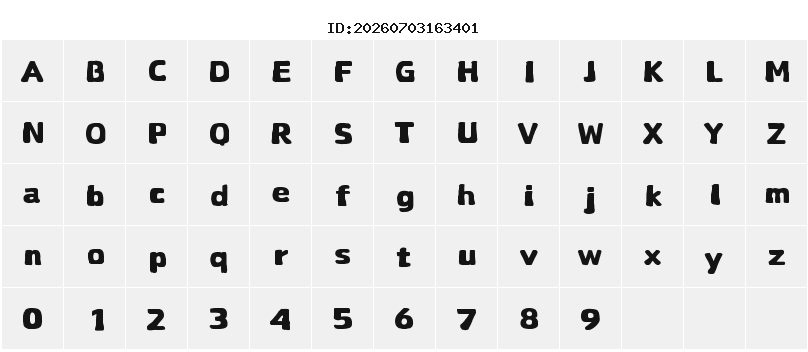
434-上首树懒体 Preview
About 434-上首树懒体.ttf
434-上首树懒体.ttf is a modern, elegant sans-serif font designed for ultimate readability and visual harmony. Perfect for branding, headlines, web design, and print materials.